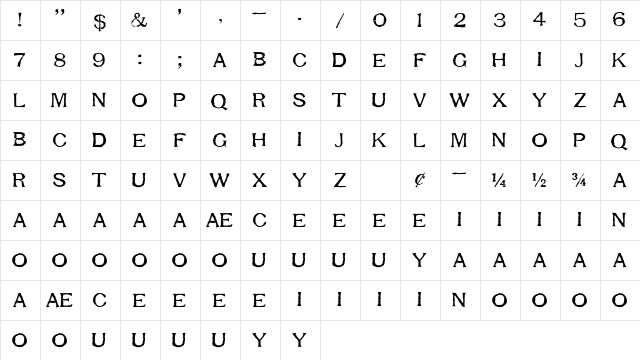
Complete Respess Capitals Medium Medium glyph index. Displaying only characters natively supported by Respess Capitals Medium Medium font.
Respess Capitals Medium is a composed and adaptable typeface that performs quietly and consistently across a wide range of design contexts.